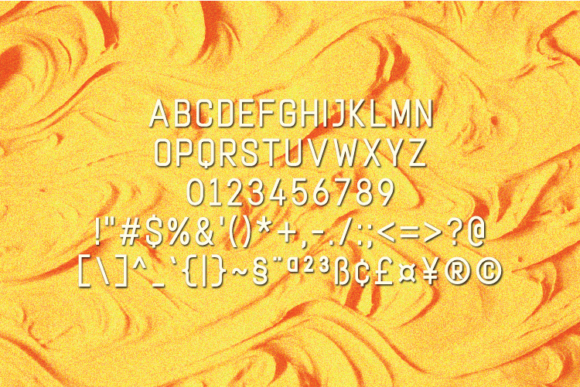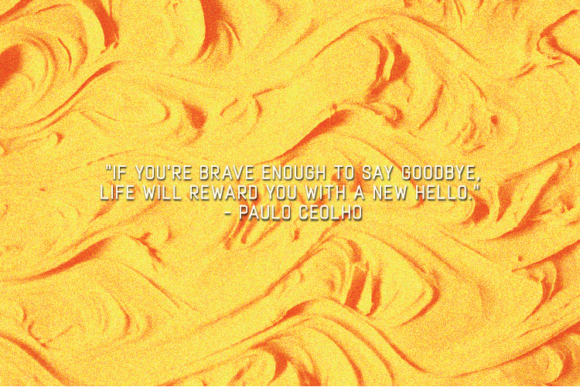
Introduction to Meloncrem Font
You know that feeling when you’re in the middle of a creative project, and you’re stuck trying to find the perfect font to bring your design to life? You scroll through page after page of options, but nothing seems quite right. That’s where Meloncrem Font comes in – a cool and simple lettered sans serif font designed to complement every project you’re working on.
Whether you’re creating beautiful headings, gorgeous invitations, stunning logos, or something entirely new, Meloncrem Font is the perfect design resource to have in your toolkit. With its clean lines and modern aesthetic, this high-quality font is sure to elevate your design and make it stand out. And the best part? It’s free to download, making it an invaluable addition to any designer’s arsenal.
So why settle for a generic font when you can use Meloncrem Font to add a touch of sophistication and style to your work? From transparent backgrounds to custom designs, this versatile font is the perfect way to take your creative projects to the next level.
Key Features of Meloncrem Font
- Unique, hand-drawn design ideal for creative projects requiring a playful touch.
- High-resolution design suitable for use at any size, from small text to large headings.
- Perfect for use in a variety of creative projects, including branding, advertising, and digital design.
Honest Review: Meloncrem Font
I recently had the chance to work with the Meloncrem Font, and I must say it’s a solid addition to any designer’s toolkit. As a design resource, it offers a unique blend of style and versatility that can elevate a creative project to the next level.
- ✨ High-quality characters: The font boasts crisp, clean lines and a smooth texture that makes it perfect for both digital and print applications.
- ✨ Wide language support: Meloncrem Font covers a broad range of languages, making it an excellent choice for designers working on international projects.
However, there are a few limitations to keep in mind. ⚠️ The font may not be suitable for very large or complex designs, as it can become difficult to read at larger sizes.
Overall, I’m impressed with the Meloncrem Font. It’s a high-quality design resource that’s perfect for a wide range of creative projects. Its unique style and versatility make it a great addition to any designer’s toolkit.
Tips for Getting the Most Out of Meloncrem Font
To get the most out of the Meloncrem Font, try using it in conjunction with a transparent background to create visually appealing designs. You can also experiment with different font sizes and styles to add depth and interest to your project.
The Meloncrem Font is a versatile design resource that can be used in a variety of creative projects, including:
- Editorial and publishing design
Alternatives to Meloncrem Font
Ostrich Sans is a modern sans-serif font perfect for creative projects that require a clean and professional look. It features a transparent background and is available for free download. Suitable for use in logos, signage, and digital interfaces. When compared to Meloncrem Font, Ostrich Sans has a more geometric and sleek design, making it ideal for modern designs.
Great Vibes is a beautiful script font ideal for creative projects that need a touch of elegance. It’s available for free download and features a transparent background. Suitable for use in invitations, quotes, and watermarks. When compared to Meloncrem Font, Great Vibes has a more flowing and cursive design, making it perfect for creative and artistic projects.